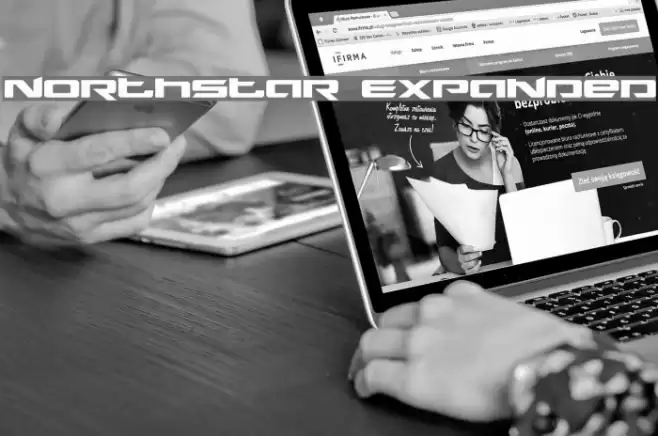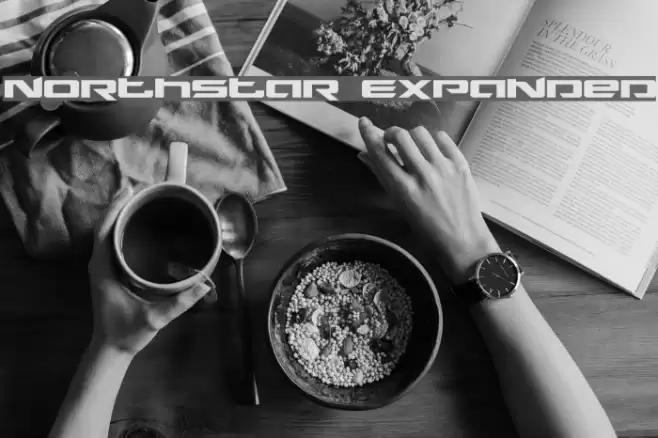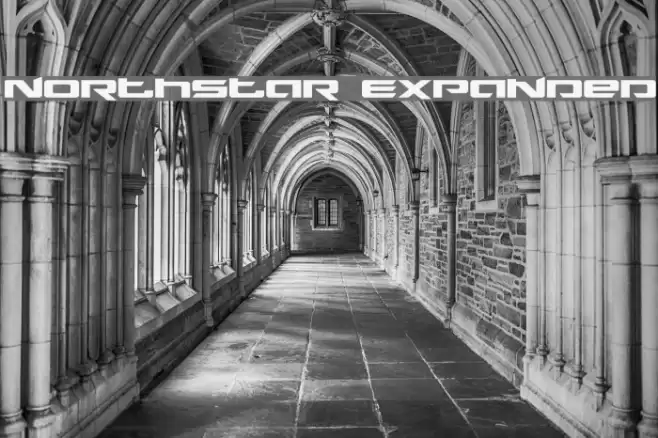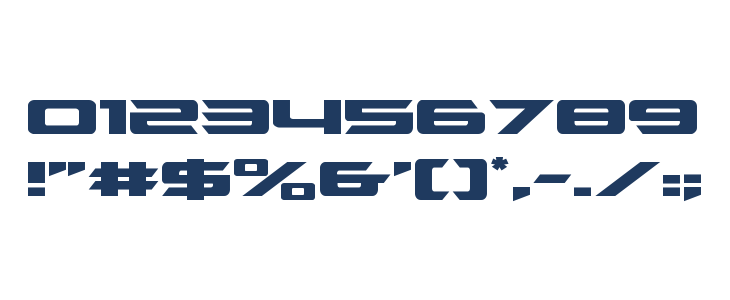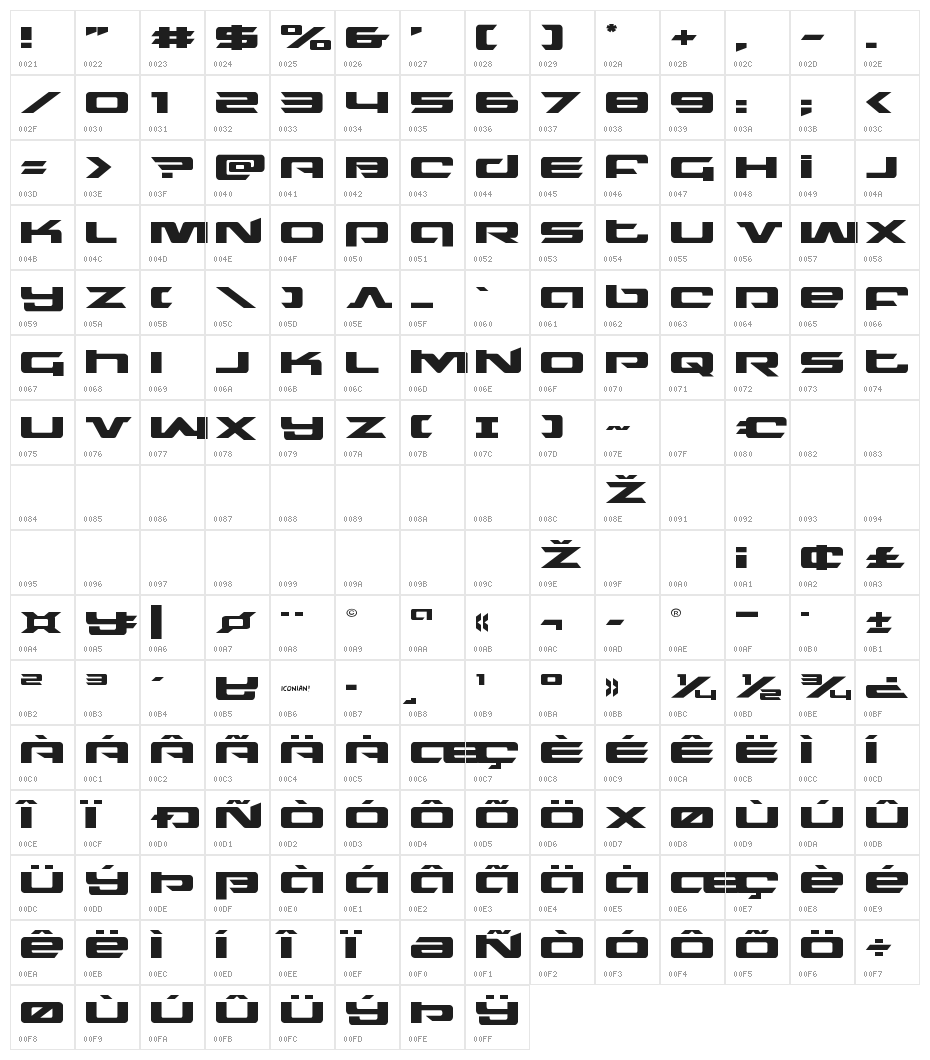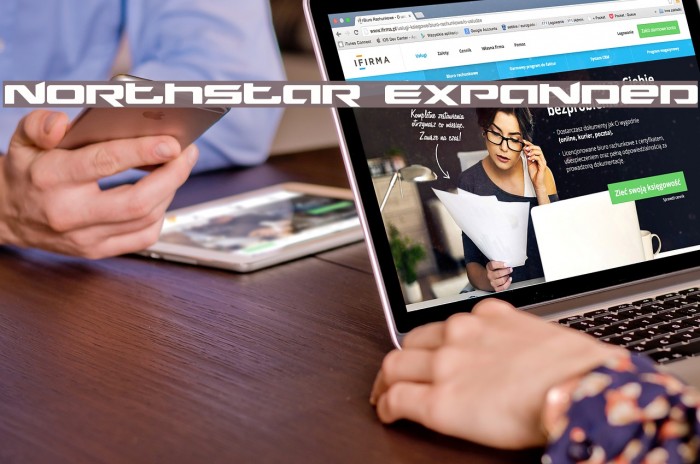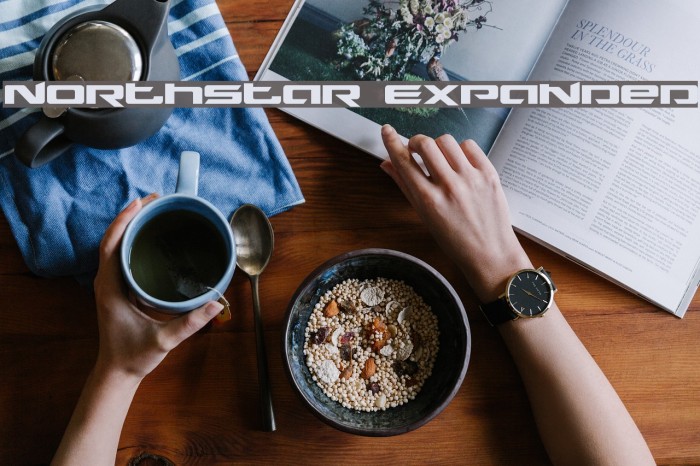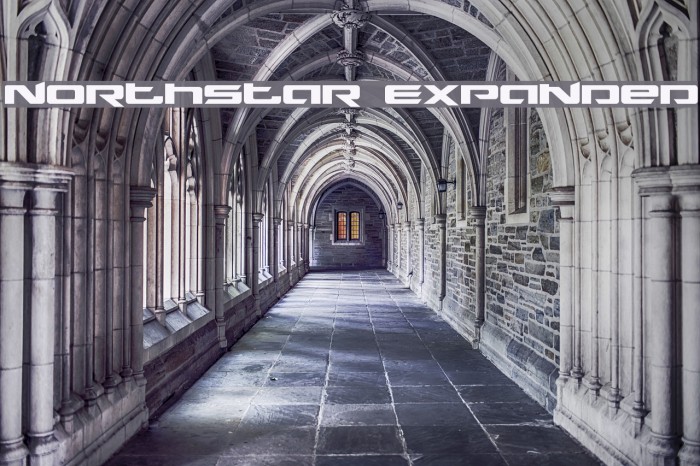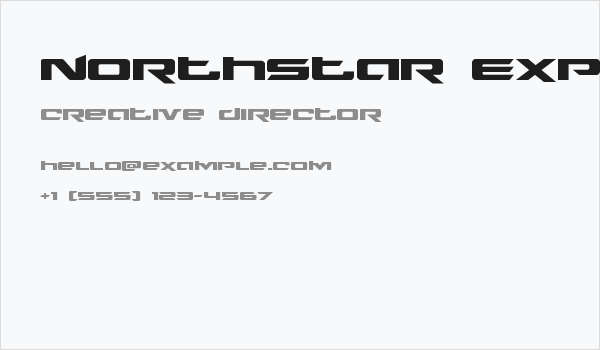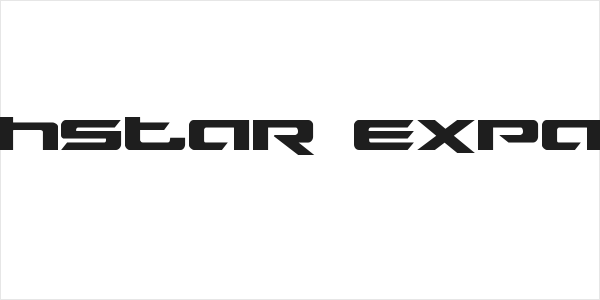
Northstar Expanded Font
Northstar Expanded Description
This font features a bold, futuristic design with sharp, angular edges and a geometric structure. The characters are wide and expanded, giving a sense of modernity and strength. The uppercase and lowercase letters maintain a consistent style, with unique cuts and angles that add a dynamic feel. The numbers and special characters follow the same aesthetic, ensuring uniformity across all glyphs. This font is ideal for projects that require a strong, impactful visual presence.
A bold, futuristic font with angular, geometric characters from Uncategorized fonts.
- Proposed Projects: Ideal for sci-fi themed designs, technology branding, video game titles, and modern advertising.